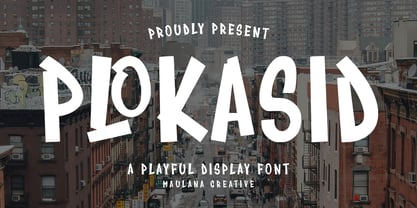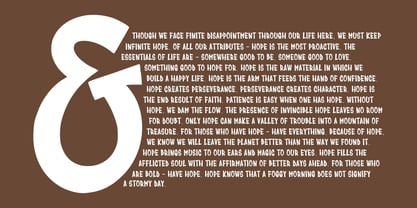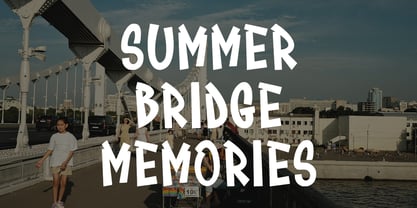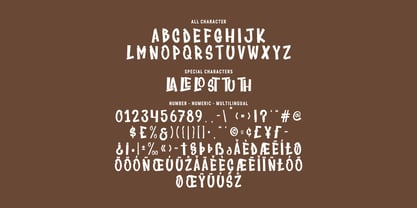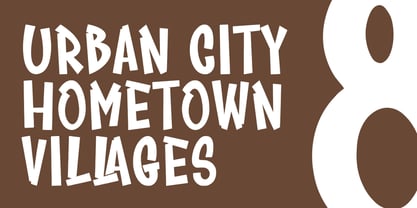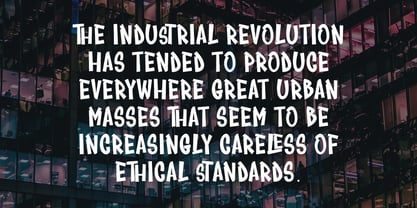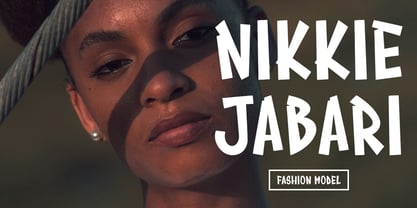
MC Plokasid
por Maulana Creative
La familia tipográfica MC Plokasid fue diseñada por Gilang Maulana y publicada por Maulana Creative. MC Plokasid contiene 1 estilos. Más información sobre esta familia
Plokasid is a playful style display font. Fun character with a bit of ligatures. To give you an extra creative work. Plokasid playful font support multilingual more than 100+ language. This font is good for logo design, Social media, Movie Titles, Books Titles, a short text even a long text letter and good for your secondary text font with sans or serif. Make a stunning work with Plokasid font.
Diseñadores: Gilang Maulana
Fundición: Maulana Creative